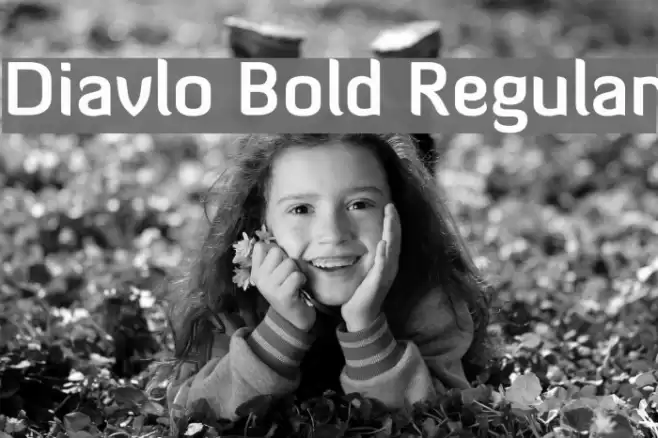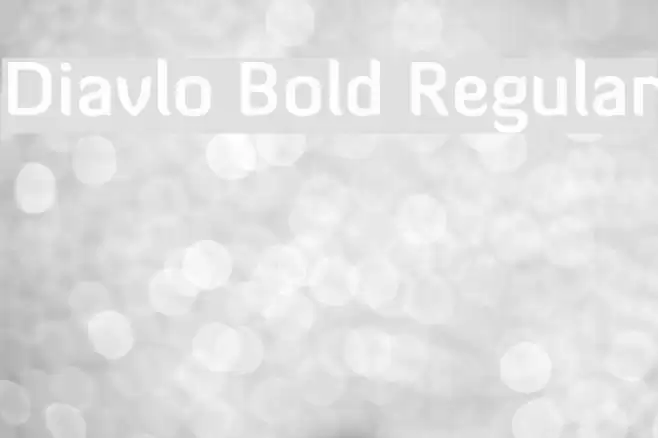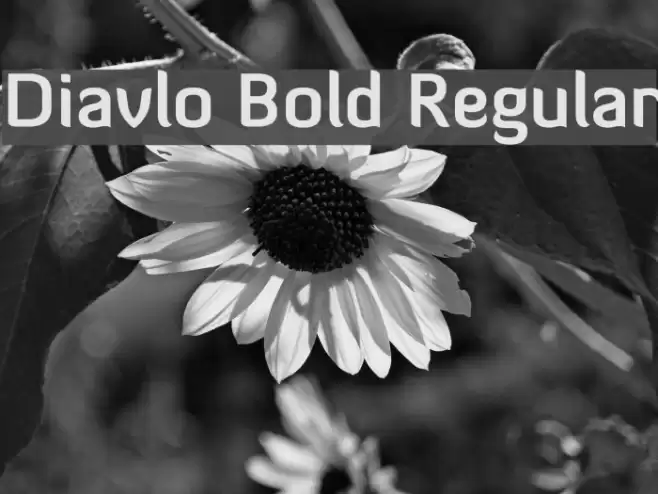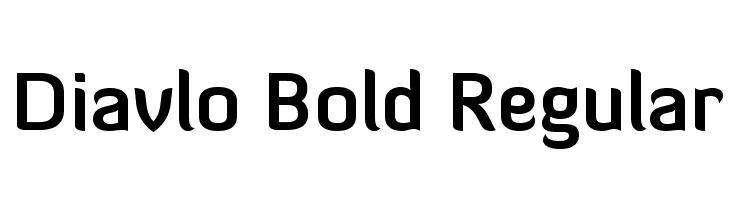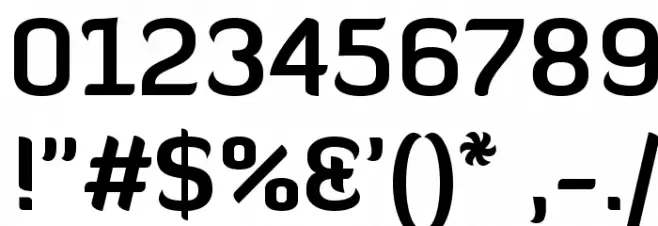
Diavlo Bold Regular
This font features a bold and modern design with clean, geometric lines and a slightly condensed appearance. The characters are well-defined with a consistent stroke width, providing a strong and assertive look. The uppercase letters are tall and commanding, while the lowercase letters maintain a balanced and harmonious flow. The numerals are clear and easily distinguishable, making them suitable for various applications. Special characters are included, offering versatility for different design needs. Overall, this font exudes a contemporary and professional vibe, making it ideal for impactful headlines and branding projects.
A bold, modern font with clean lines and a slightly condensed style.
- Proposed Projects: Ideal for branding, headlines, posters, and digital media where a strong, modern presence is desired.
- Width: Condensed
- Use Case: Headlines, Logos, Branding